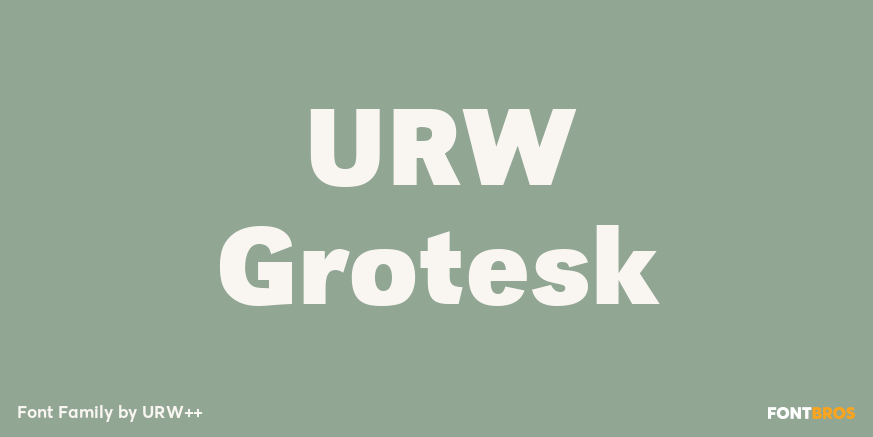
URW Grotesk
About URW Grotesk
URW Grotesk was designed exclusively for URW by Prof. Hermann Zapf in 1985. At the same time, Zapf designed URW Antiqua to go with URW Grotesk. At that time, we were working with a large German publishing house (Axel Springer) on type design solutions…